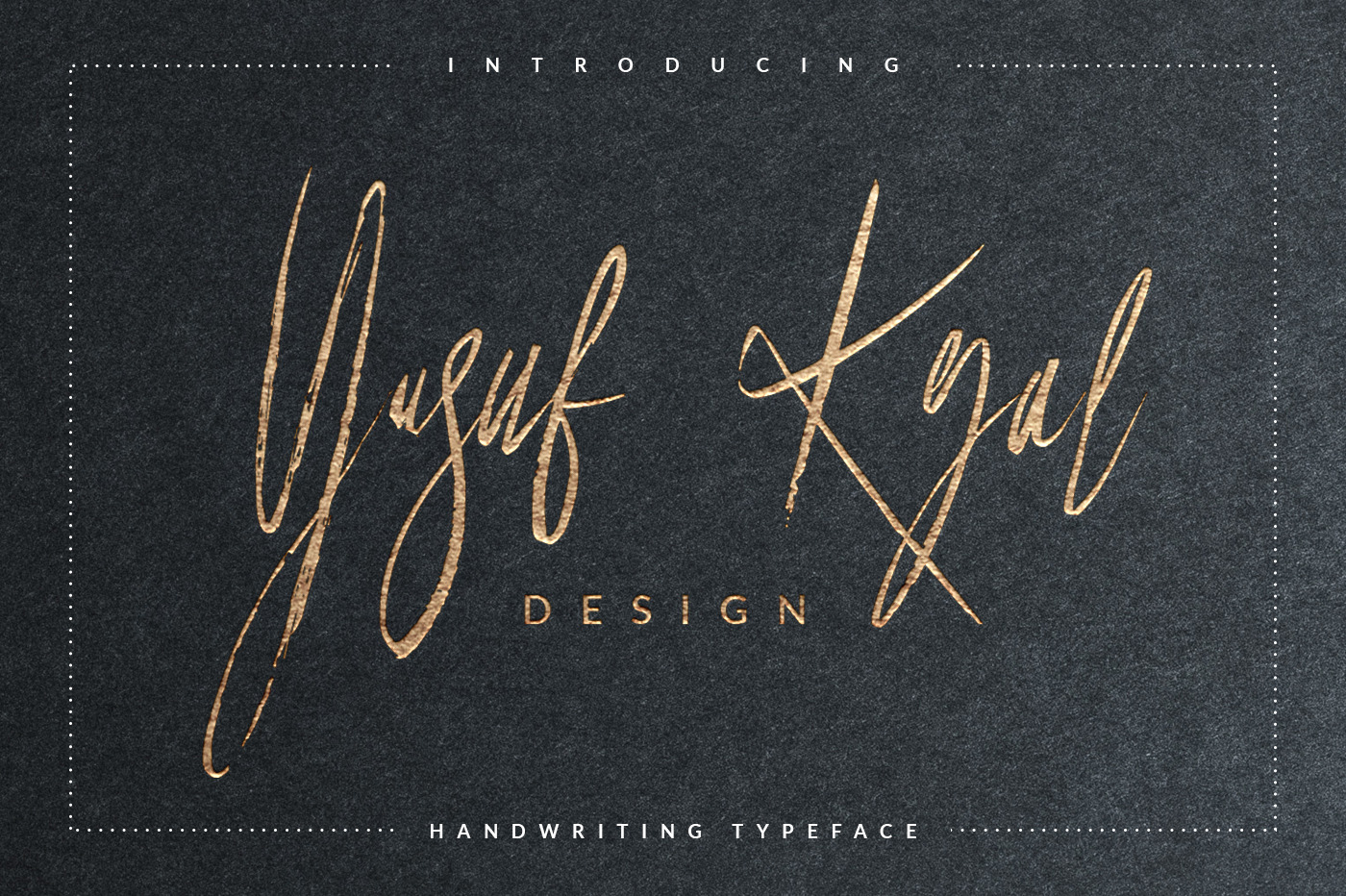
Yusuf Kral Artistica Font
Yusuf Kral artistica font is a hand-made font created by using thick brush. It is a signature font that the thickness of lines are charming. It can be easily used for t-shirts, bags, invitations and so on... It is becoming more interesting with special characters. Thank you for viewing it. We hope you would like it.